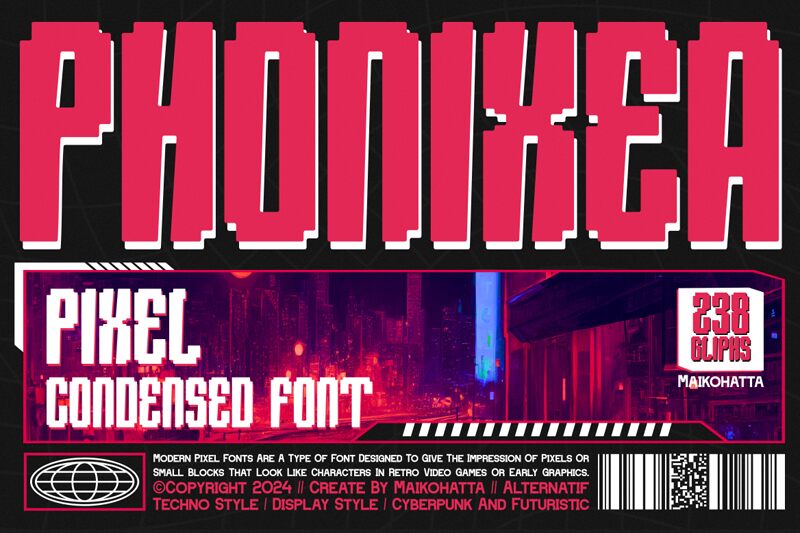
Phonixea font family by Gilang Ternadho with its 2 font styles is a techno-inspired typeface presented as a free font for personal use. The characters maintain a strong geometric visual that is created with the thought of a futuristic vibe that also echoes a retro gaming experience. The overall typeface is bold, structured, and impactful, all of which enable it to be appropriate both for large and small-sized projects.
Substitute your font choice for all use cases such as movie posters, album covers, social media posts, online banners, packaging designs, headings, title scripts, and many others. Due to its dynamic look, Phonixea will look equally impressive when used for modern and youthful products. This could include starting with sneakers, accessories, and game packaging among others.